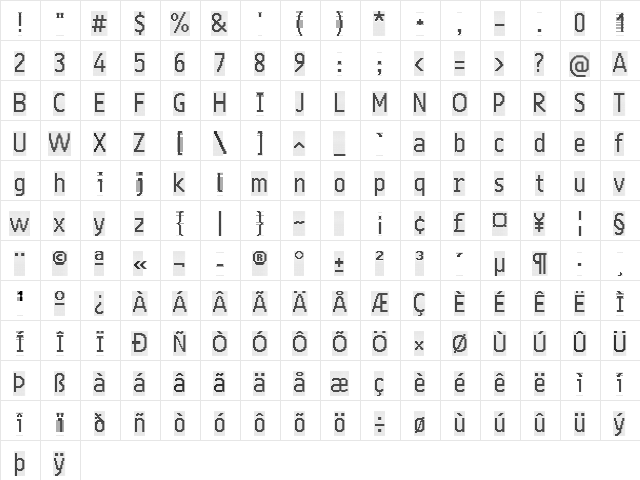
24 LED Grid Regular
| Foundry | Peter Wiegel |
| Designer | Peter Wiegel |
Design Context for 24 LED Grid Typeface
24 LED Grid is a composed and adaptable typeface that performs quietly and consistently across a wide range of design contexts.